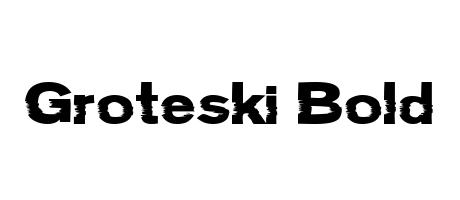
Groteski
By Typografski
Groteski Bold is a strong, impactful typeface. Its chunky, slightly distressed letters give it a raw, almost hand-carved quality. The boldness is assertive yet retains readability. The subtle textural imperfections inject a touch of grit and character, setting it apart from cleaner, more polished fonts. It's ideal for headlines or branding that needs a robust, confident feel.